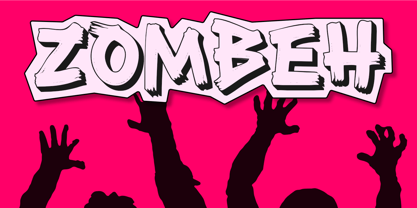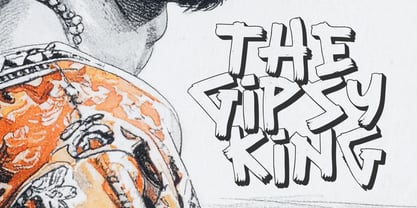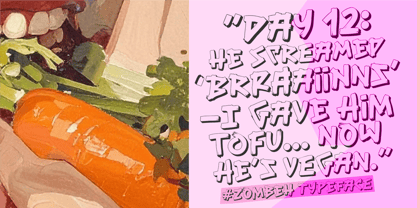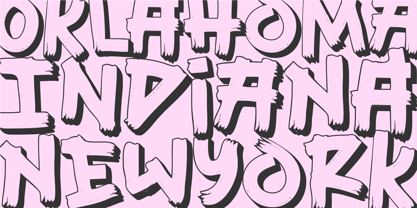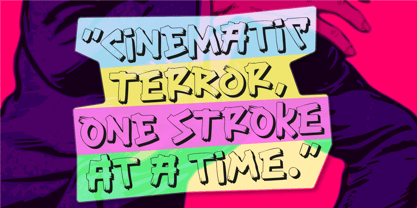
Zombeh
by Epiclinez
The Zombeh Font Family was designed by Aldy Sidik and published by Epiclinez. Zombeh contains 1 styles.
Introducing Zombeh, a bold brush typeface oozing with gritty, undead energy. Handcrafted with jagged strokes and a raw, zombie-inspired aesthetic, Zombeh is perfect for horror movie titles, Halloween designs, gaming logos, spooky posters, and anything that needs a touch of creepy, chaotic flair. Each letter is designed to look like it’s clawed straight from the dirt—perfect for that handmade horror feel.
Whether you're designing scary branding, grunge logotypes, apocalyptic t-shirts, or dark-themed packaging, Zombeh delivers a wild, energetic look that screams with personality. This all-caps display font includes uppercase characters, numbers, and essential punctuation—crafted for maximum impact in your zombie-themed graphics, scary movie trailers, or survival horror games.
If you’re a designer looking for a distressed brush font, a grunge display typeface, or a hand-drawn scary font that looks like it belongs in a post-apocalyptic world, Zombeh is your ultimate weapon. It’s raw. It’s loud. It’s alive... kinda.
Designers: Aldy Sidik
Publisher: Epiclinez
Foundry: Epiclinez
Design Owner: Epiclinez